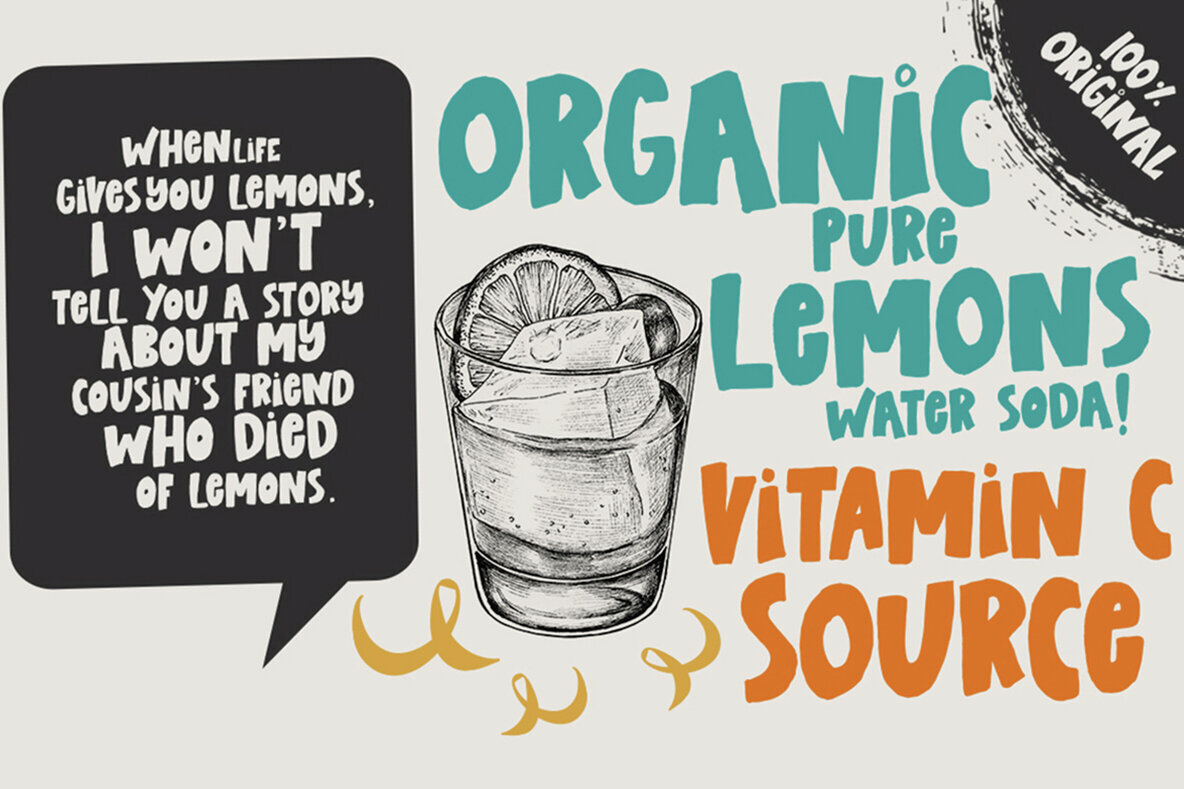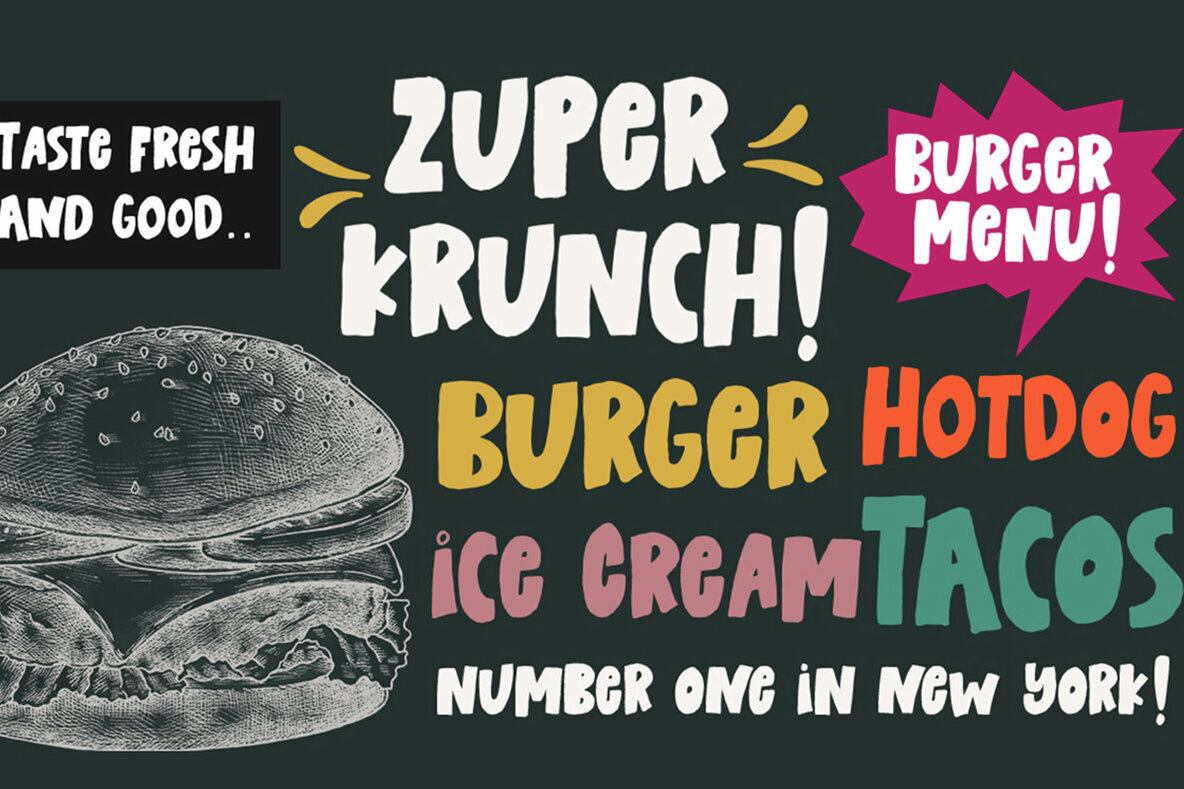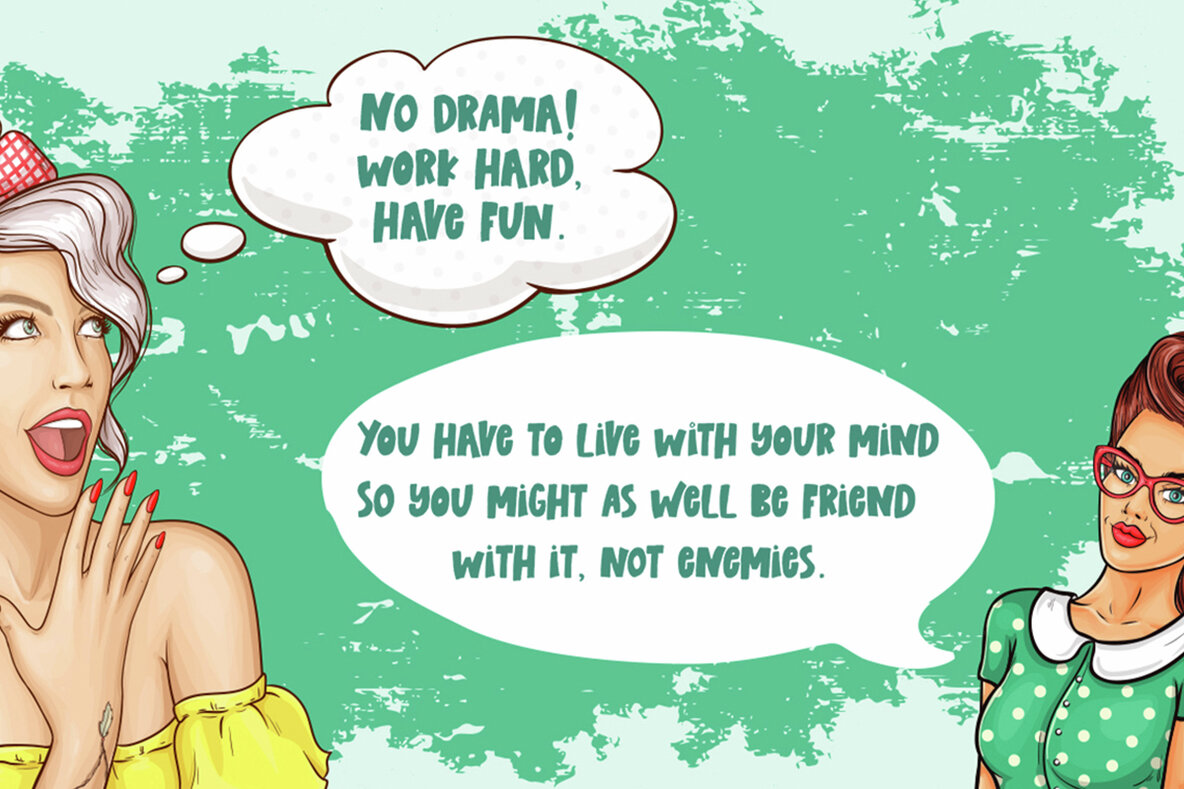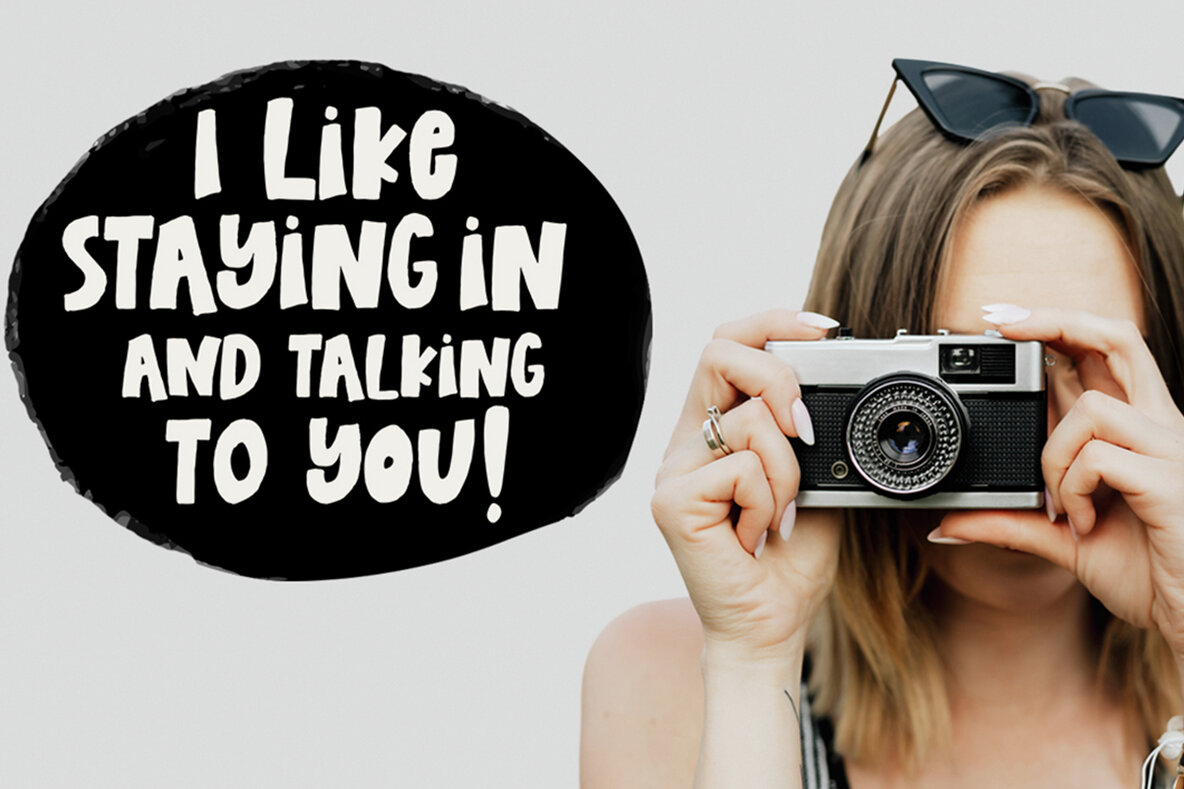
Lovely Scream Queens Font
Lovely Scream Queens is a hand brush font made with brushes and ink. This typeface is ideal for use in thick watercolor designs or in those needing a hand writing touch such as blog titles, posters, comic books, t-shirts, clothing, book covers, business cards, greeting cards, branding, merchandising and more. Lovely Scream Queens contains a full set of: